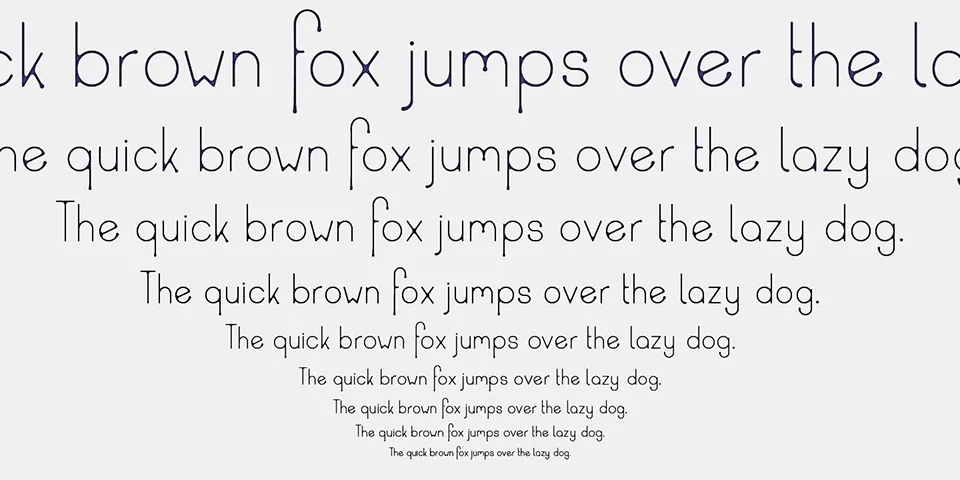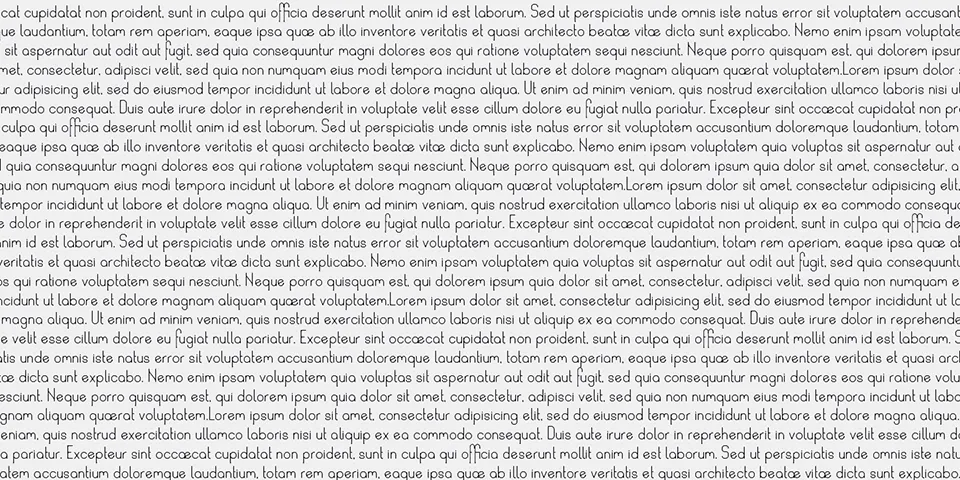
Ud Thin Font
The Ud Thin Font is a minimalist and modern hand-drawn sans serif typeface designed with ultra-thin lines and subtle inconsistencies between the stems, giving it a unique and contemporary appearance. Perfect for clean, elegant branding, editorial headlines, and creative projects that require a refined yet distinctive touch.